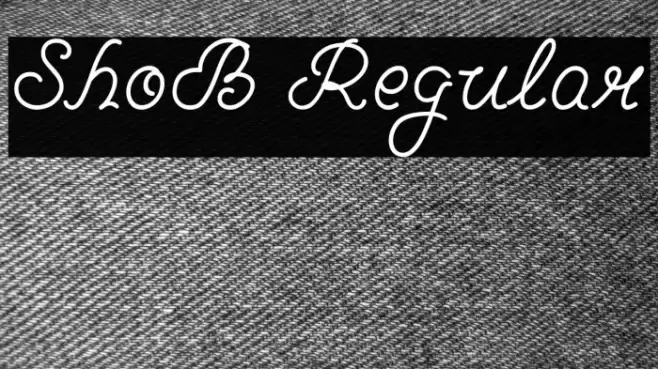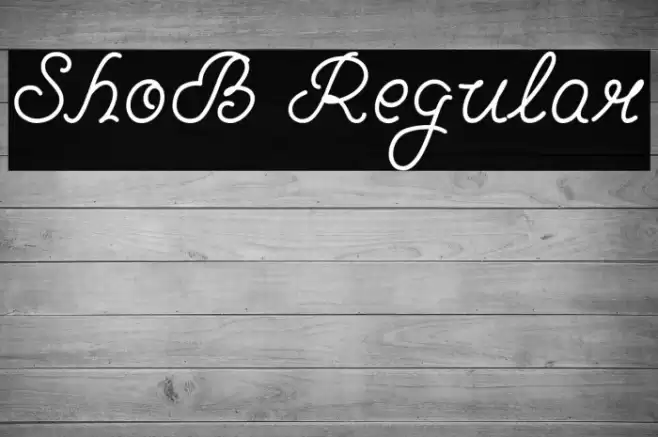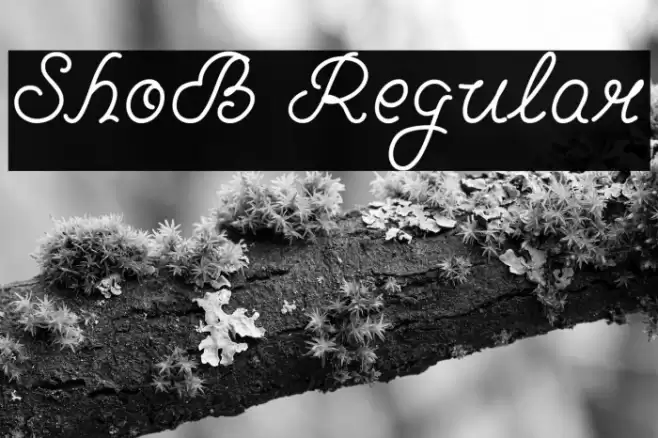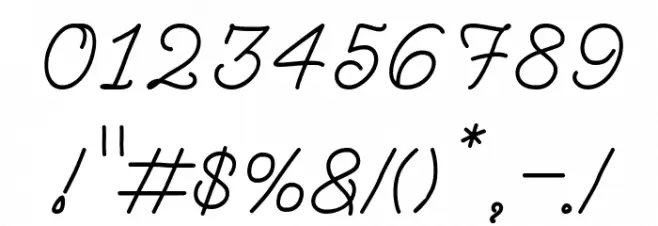
ShoB Regular Font
ShoB Regular Description
This font features a flowing, cursive style with elegant loops and swirls, giving it a handwritten appearance. The uppercase letters are bold and prominent, while the lowercase letters maintain a consistent fluidity, enhancing readability. Numbers and special characters are designed to match the overall aesthetic, with a playful yet sophisticated look. The strokes are consistent in width, providing a harmonious balance across all characters. This font exudes a sense of creativity and personal touch, making it ideal for projects that require a personal or artistic flair.
A cursive, handwritten-style font with elegant loops and consistent strokes from Regular fonts.
- Proposed Projects: Ideal for wedding invitations, greeting cards, personal branding, and artistic projects.
- Use Case: Logos, Invitations, Artistic projects